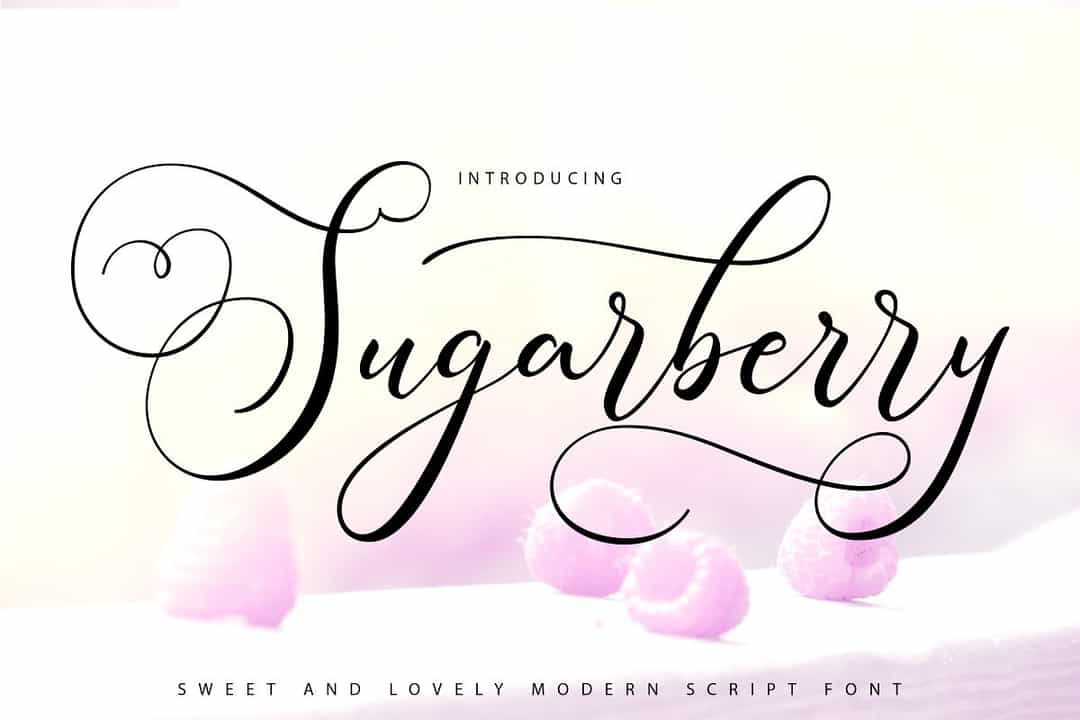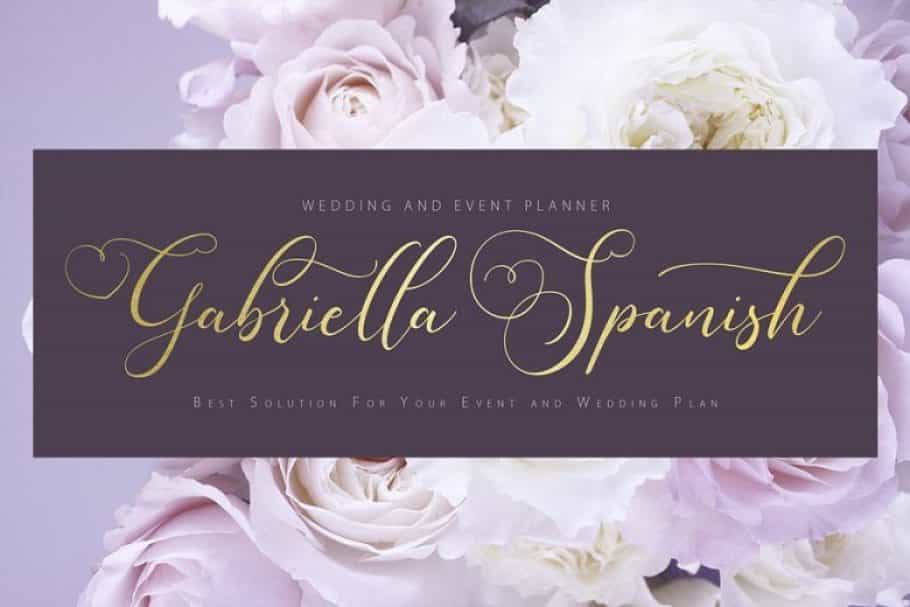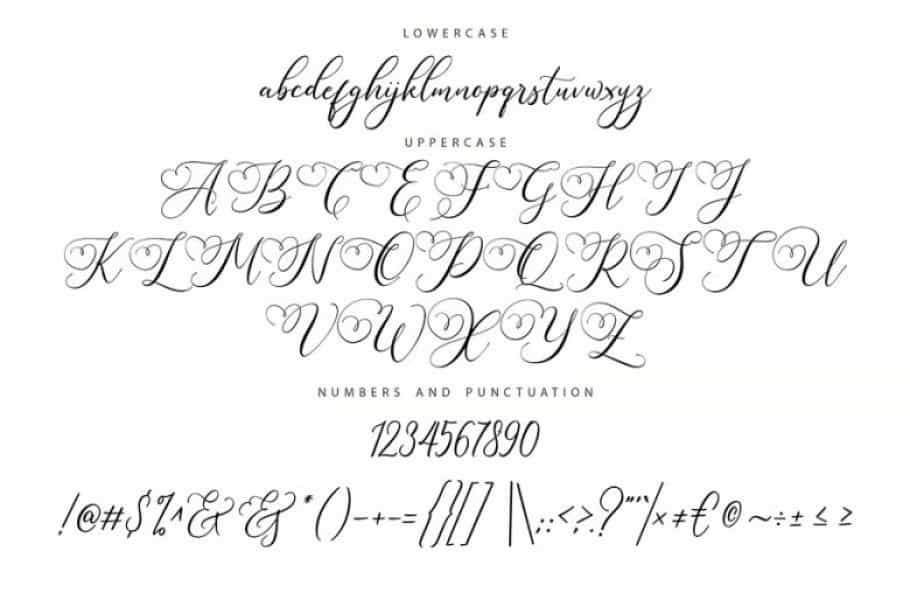
Discover Sugarberry Calligraphy Script Font, part of the Calligraphy Script collection—a versatile and unique font perfect for adding a personal touch to your projects. Download it for free and enjoy crafting designs with style, from invitations to social media posts. This font is available exclusively for personal use, giving you the freedom to create without limits. Unlock your creativity with Sugarberry Calligraphy Script Font today!
Sugarberry is a new modern calligraphy script with elegant italic style and the unique, but not too overwhelming characters! Suitable for branding; packaging of home wares, homeware packaging designs, quotes on mugs, t-shirt logos, book covers, invitations, name cards, greeting cards and many other creative purposes – Sugarberry can help to materialize these concepts.